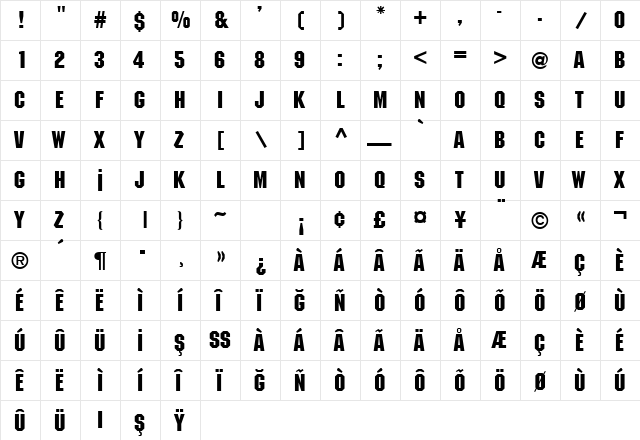
TR Motor Plain
Design Context for TR Motor Typeface
TR Motor takes a measured approach to typography — its balanced proportions and neutral character make it a reliable workhorse for both digital and print work.